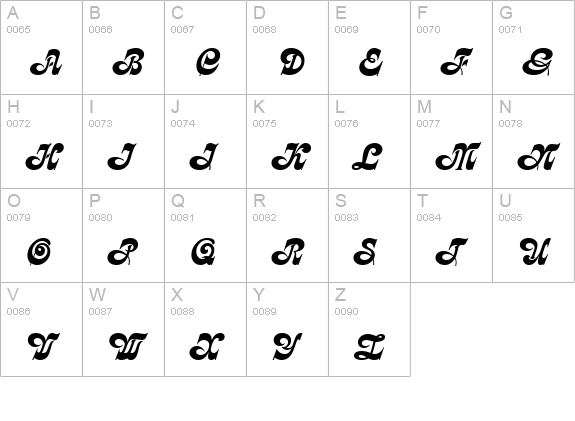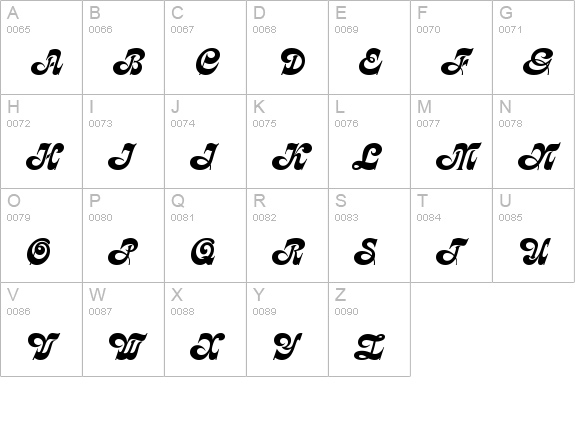
Karin-Regular is the standard, neutral variant in the Karin typeface family \xE2\x80\x94 well suited to general body text, paragraphs, and standard typographic work.
Karin-Regular is a versatile and elegant font that exudes sophistication and charm. With its clean lines and classic aesthetic, this typeface is perfect for a wide range of design projects, from branding to editorial design. The timeless appeal of Karin-Regular makes it suitable for both print and digital applications, ensuring your message is conveyed with clarity and style. The best part? Karin-Regular is available for free download at FontsMarket.com, allowing you to access this high-quality font without any cost. Whether you're a seasoned designer or just starting out, Karin-Regular is a valuable addition to your font collection. Don't miss out on the opportunity to enhance your projects with this beautiful and versatile typeface. Download Karin-Regular today and elevate your designs with ease.